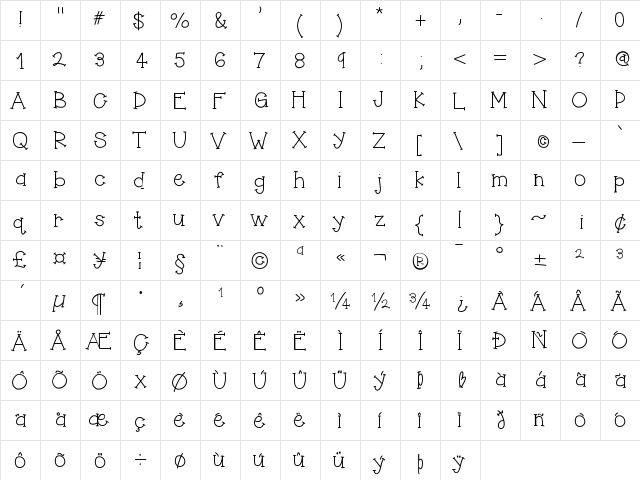
HelloJumpingJacks Medium Free Font
HelloJumpingJacks Medium
Complete HelloJumpingJacks Medium glyph index. Displaying only characters natively supported by HelloJumpingJacks Medium font.
Design Context for HelloJumpingJacks
HelloJumpingJacks is a composed and adaptable typeface that performs quietly and consistently across a wide range of design contexts.